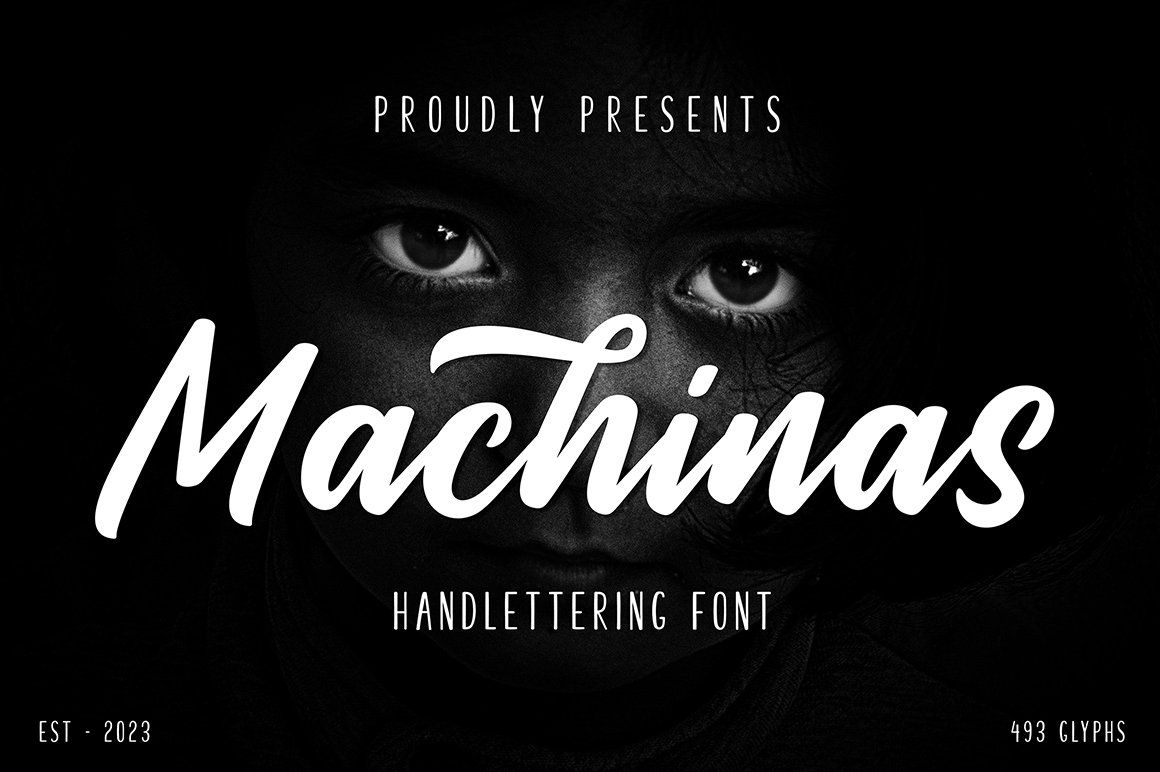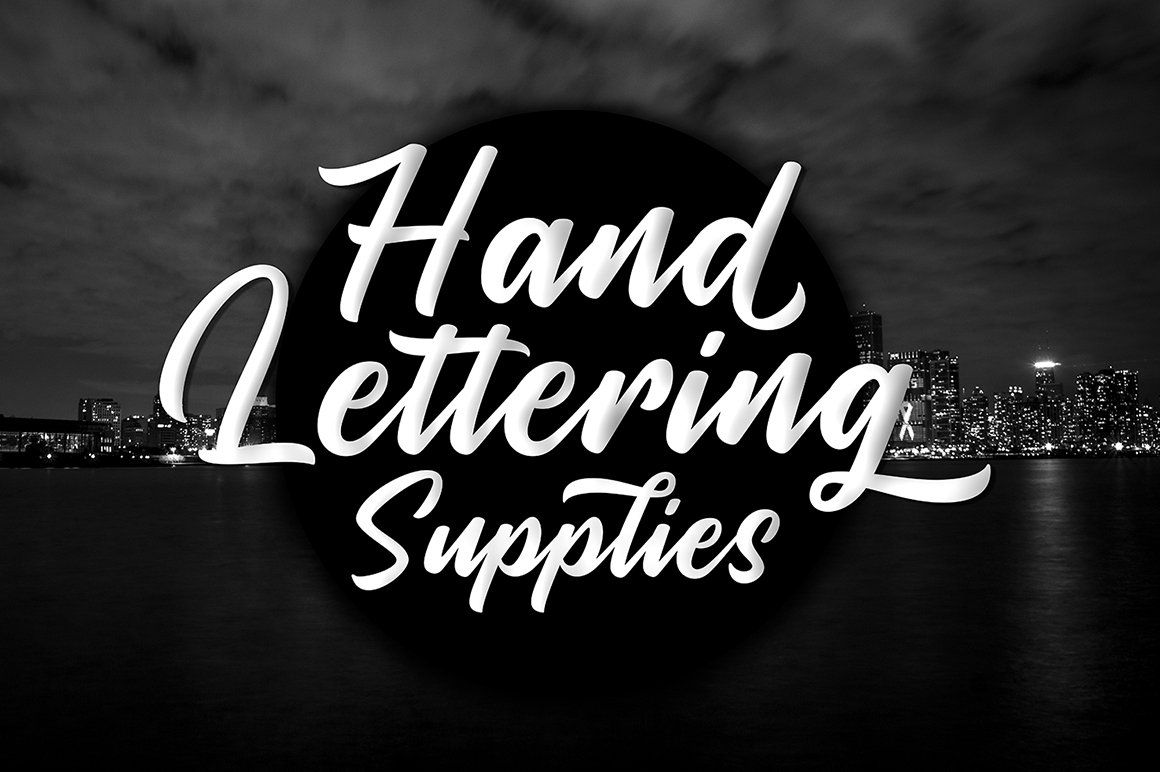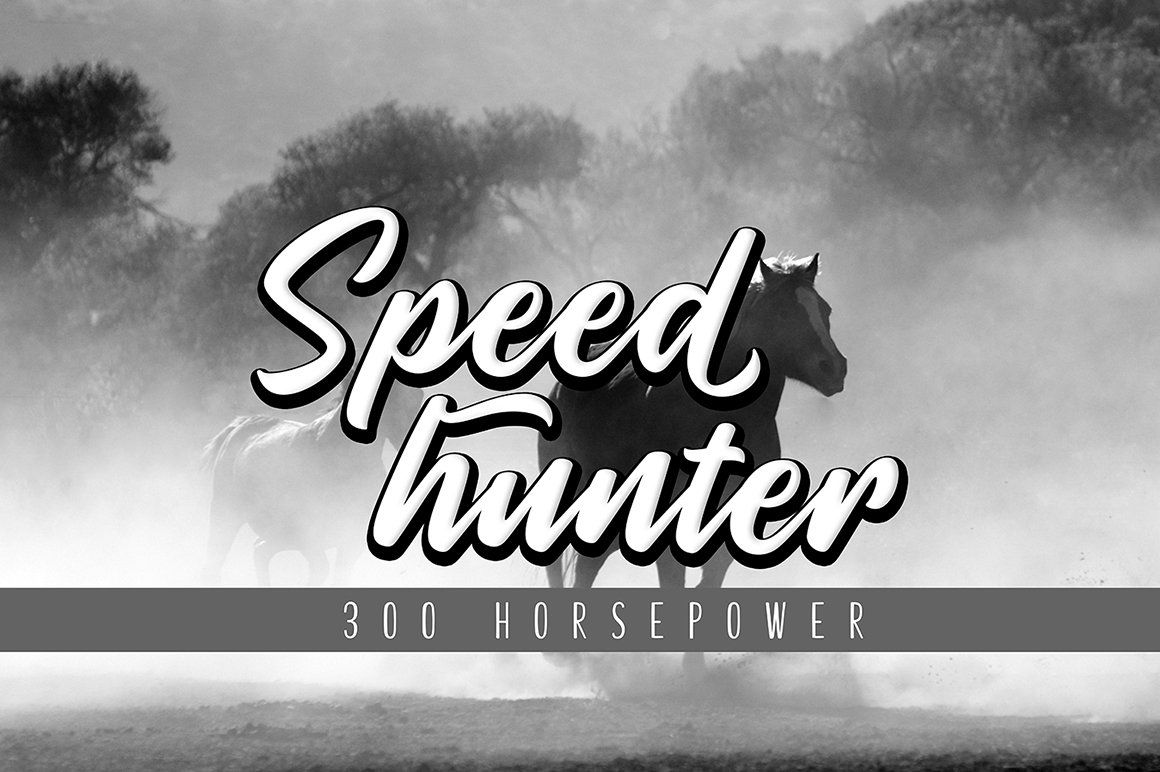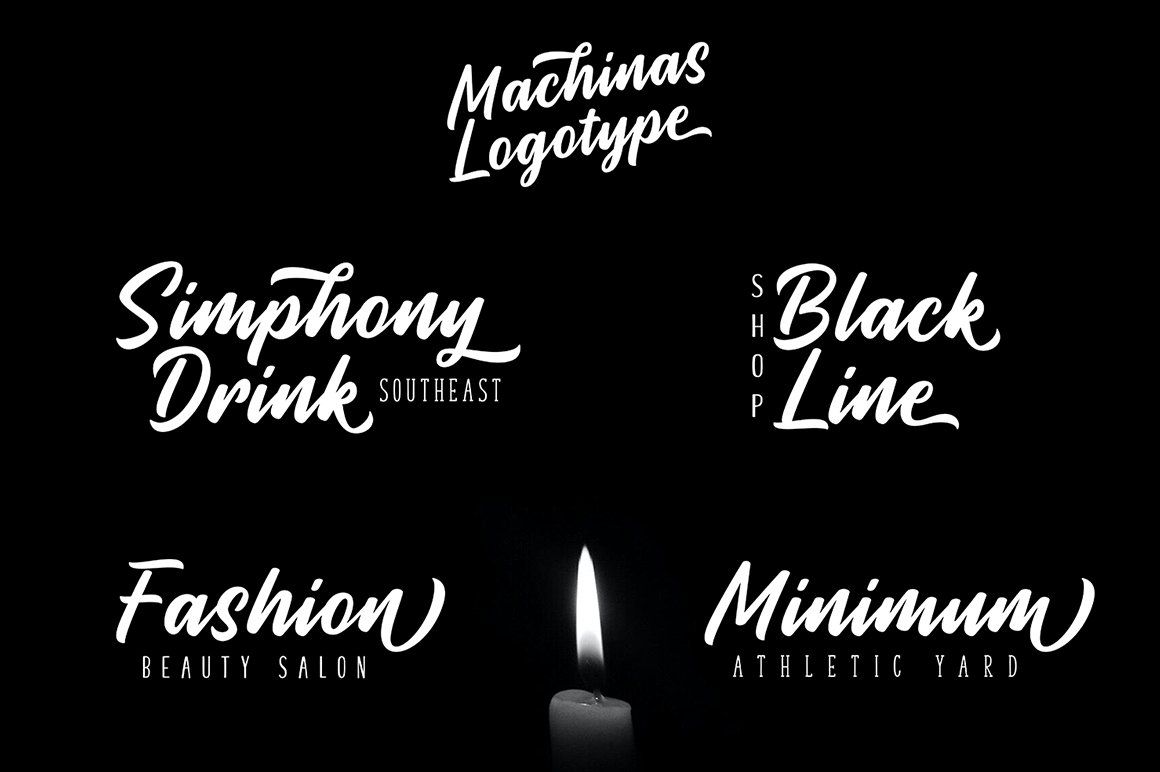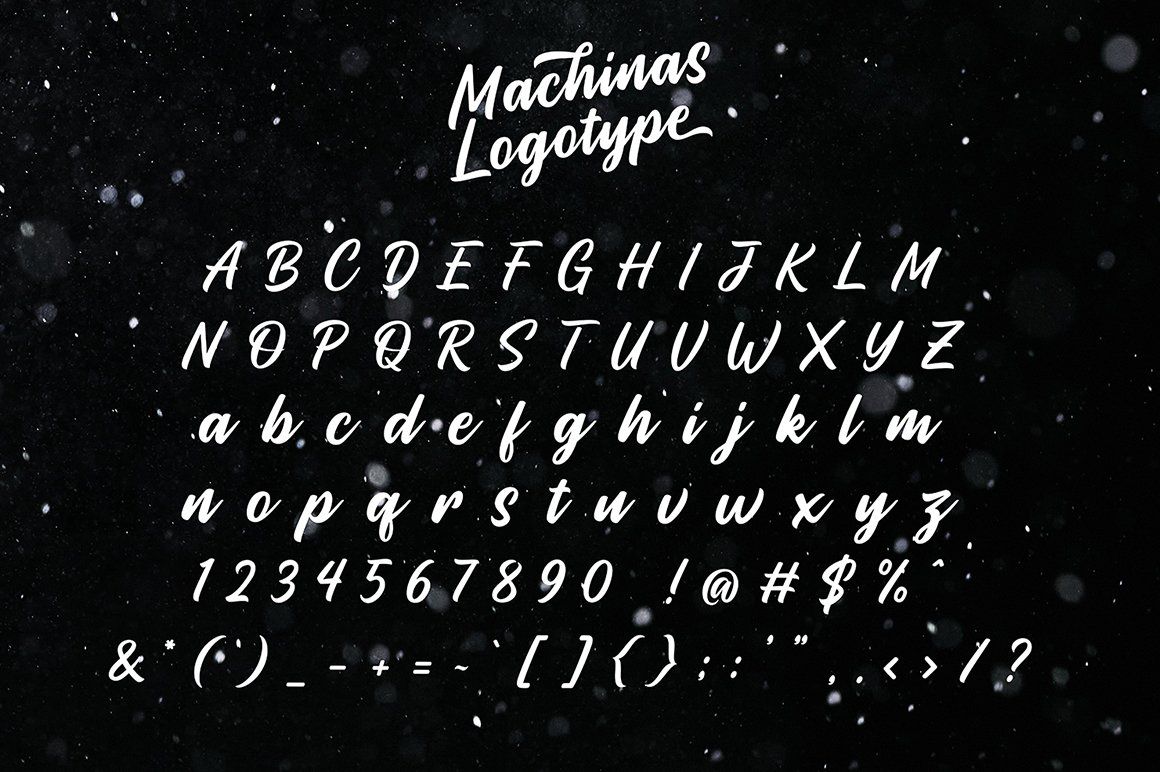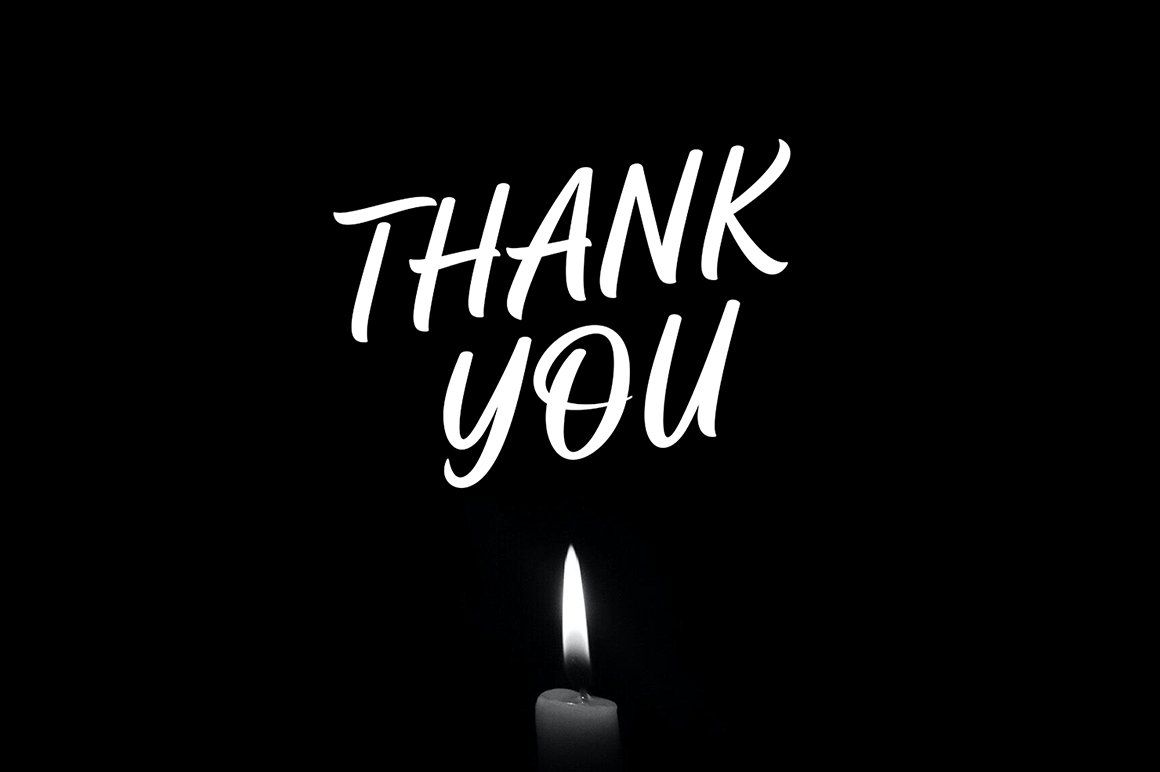
The Machinas Typeface is retro and classic typeface who inspired by the 70s - 90s designs with more unique explored style like swosh and alternate character. This font made from manual sketch with many many scratch then finished to font. there are 493 glyphs, so many options that you can use for your projects, Make your designs project with this font and extras illustration to give more superb. This font also suitable to design like logo, sticker, tees design, banner, poster, sign, display design, packaging and more superb designs!
Full set of Upper & Lowercase Character
Number & Punctuation
Swosh Alternate
Extras Illustration
Multilingual Language
Opentype Features